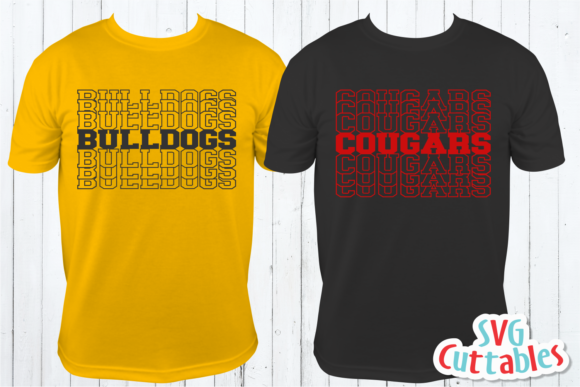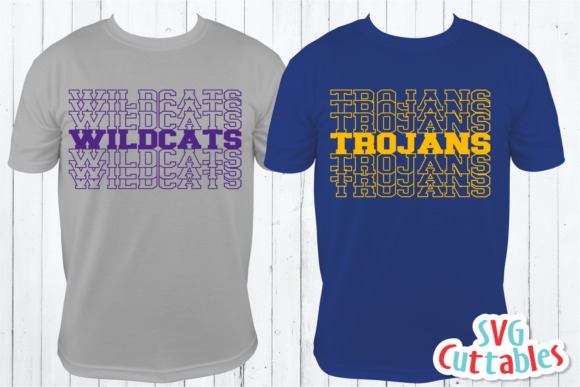
Enter JP Sport Stacked Font Font, a bold and assertive slab serif font designed to make a statement. With its versatility and style, this font is perfect for a wide range of applications, from digital design and presentations to crafts and greeting cards. As a designer, you’ll appreciate the value of having a font like JP Sport Stacked Font Font in your toolkit, offering endless possibilities for creative expression and communication.
JP Sport Stacked Font Key Features
- Font Family: A stacked font with a sporty theme, ideal for use in logos, titles, and other design elements.
- Unique Characteristic: The stacked design allows for creative and visually appealing arrangements of text, setting it apart from standard fonts.
JP Sport Stacked Font Review
I recently had the chance to work with the JP Sport Stacked Font, and I must say it’s a mixed bag. On the one hand, here’s what works well: ✨ The font is bold and attention-grabbing, making it perfect for sports-related projects or anything that needs a high-energy feel. ✨ The stacked design is unique and adds a nice touch to any layout. ✨ The font is highly legible, even at small font sizes.
However, there are some limitations to consider: ⚠️ The font is not as versatile as I would have liked. It’s primarily suited for sports and high-energy projects, and may not be the best choice for more formal or professional work. ⚠️ The font family is relatively small, which can limit your design options. ⚠️ The font may not be compatible with all operating systems or devices.
Overall, I’d say the JP Sport Stacked Font is a solid choice for the right project, but may not be the best fit for every design need. With its bold, attention-grabbing design and unique stacked look, it’s a great option for sports-related projects or anything that needs a high-energy feel.
- Bold and attention-grabbing design
- Unique stacked design
- Highly legible even at small font sizes
Practical Application Guide for JP Sport Stacked Font
Tips: Use JP Sport Stacked Font for titles and headings to add a bold and sporty touch to your designs.
Tips: Use JP Sport Stacked Font for sports-related designs, such as jerseys, posters, and social media graphics.
Tips: Use JP Sport Stacked Font for titles and headings to add a bold and sporty touch to your presentations and documents.
JP Sport Stacked Font is commonly used for:
- Sports-related designs, such as jerseys, posters, and social media graphics.
- Titles and headings for bold and sporty looks.
- School and university branding, such as logo design and merchandise.
Alternatives to JP Sport Stacked Font
1. Sports Script
Sports Script is a classic font with a sporty and elegant feel. It is suitable for titles, headings, and promotional materials that require a sense of sophistication and athletic flair.
Comparison: Sports Script has a more rounded and flowing feel compared to JP Sport Stacked Font, which is more angular and geometric. Sports Script is a better choice for designs that require a softer, more approachable aesthetic.
2. Rockwell
Rockwell is a sturdy and classic font that exudes a sense of strength and reliability. It is suitable for designs that require a sense of stability and trustworthiness, such as corporate materials and technical guides.
Comparison: Rockwell has a more traditional and conservative feel compared to JP Sport Stacked Font, which is more modern and dynamic. Rockwell is a better choice for designs that require a sense of professionalism and authority.